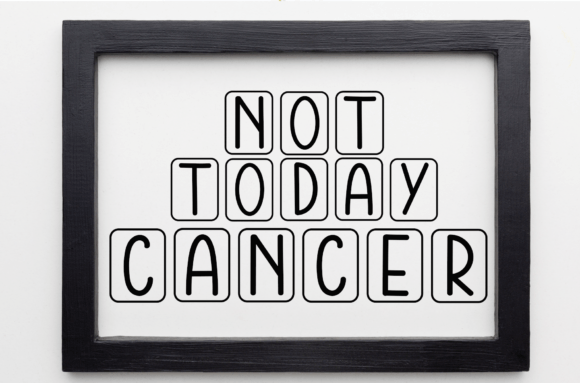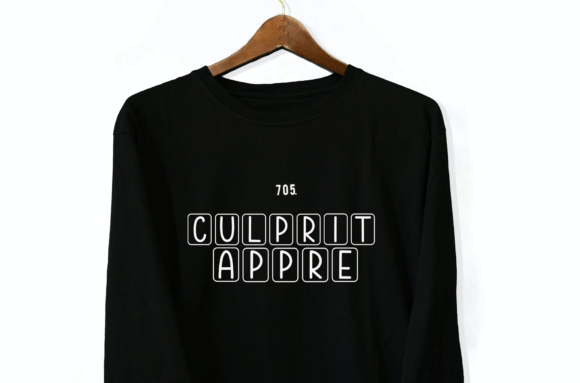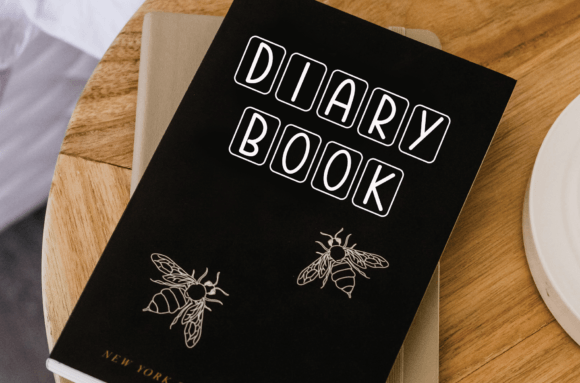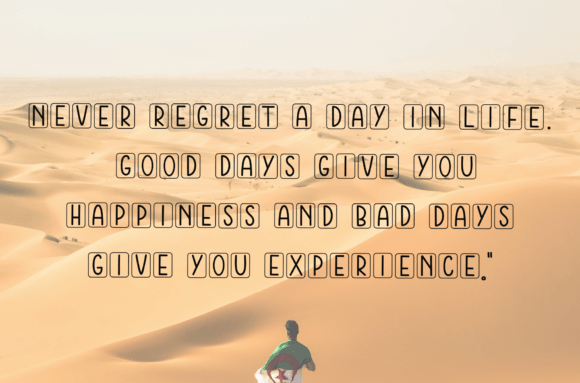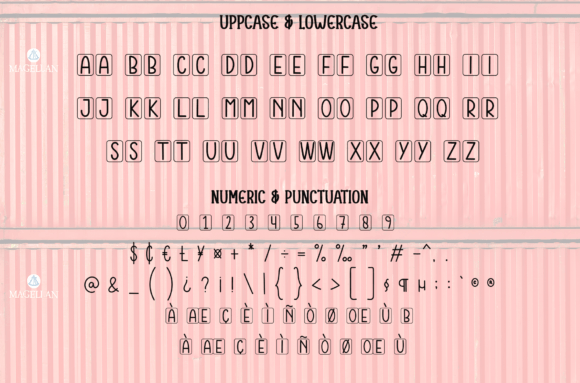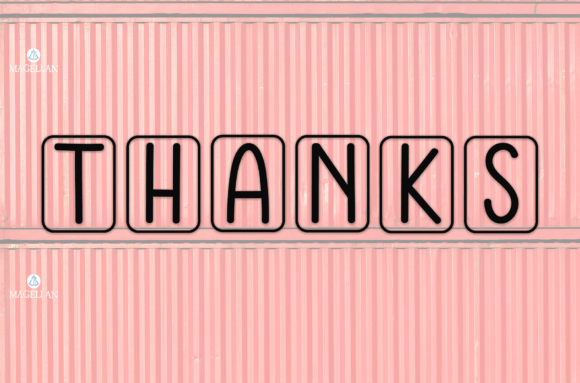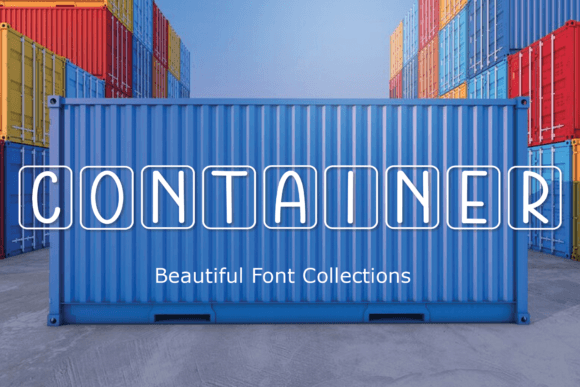
Introducing Container Font: The Sweet and Friendly Handwritten Display Font
Are you looking for a font that can add a touch of warmth and personality to your designs? Look no further than Container Font, a sweet and friendly handwritten display font that’s perfect for a variety of creative projects. In this article, we’ll take a closer look at Container Font, its features, and how you can use it to elevate your designs.
What is Container Font?
Container Font is a beautiful, handwritten display font that’s designed to bring a sense of fun and playfulness to your designs. With its cute and charming lettering style, this font is ideal for writing wedding invitations, cards, or any other design that might need a fun touch. Whether you’re a designer, crafter, or DIY enthusiast, Container Font is a great addition to your font collection.
Key Features of Container Font
So, what makes Container Font so special? Here are some of its key features:
- Handwritten style: Container Font has a beautiful, handwritten style that’s perfect for adding a personal touch to your designs.
- Cute and fun: This font is designed to be cute and fun, making it ideal for designs that require a playful touch.
- Display font: Container Font is a display font, which means it’s perfect for headlines, titles, and other prominent text elements.
- Easy to read: Despite its playful style, Container Font is easy to read, making it perfect for body text as well.
Use Cases for Container Font
So, how can you use Container Font in your designs? Here are some ideas to get you started:
- Wedding invitations: Container Font is perfect for writing beautiful, handmade-style wedding invitations that will make your guests feel special.
- Cards and stationery: This font is also great for creating cute and fun cards, stationery, and other paper crafts.
- Signs and posters: Use Container Font to create eye-catching signs and posters that will grab attention and add a touch of personality to your designs.
- Digital designs: Container Font can also be used in digital designs, such as social media graphics, blog posts, and more.
Tips for Using Container Font
Here are some tips for getting the most out of Container Font:
- Use it sparingly: Container Font is a display font, so it’s best to use it sparingly to add emphasis and personality to your designs.
- Pair it with other fonts: Try pairing Container Font with other fonts to create a unique and interesting contrast.
- Experiment with colors: Container Font looks great in a variety of colors, so don’t be afraid to experiment and find the perfect hue for your design.
In conclusion, Container Font is a sweet and friendly handwritten display font that’s perfect for adding a touch of fun and personality to your designs. With its cute and charming lettering style, this font is ideal for a variety of creative projects, from wedding invitations to digital designs. Whether you’re a designer, crafter, or DIY enthusiast, Container Font is a great addition to your font collection.